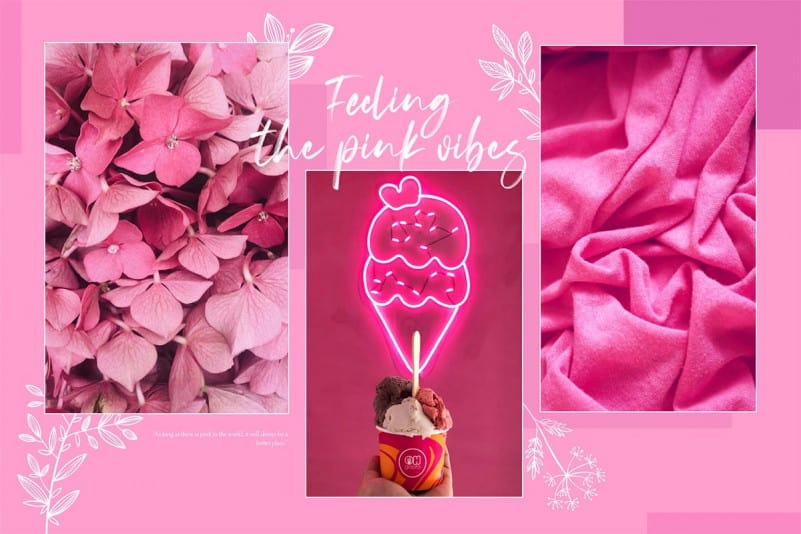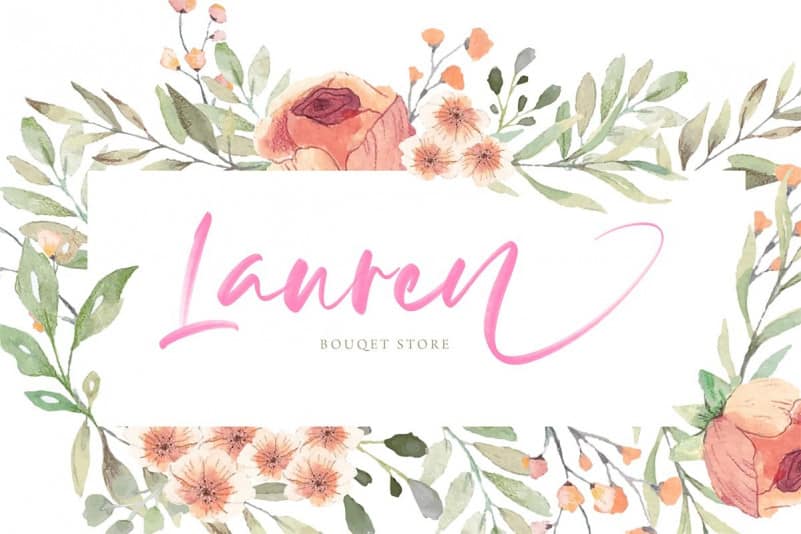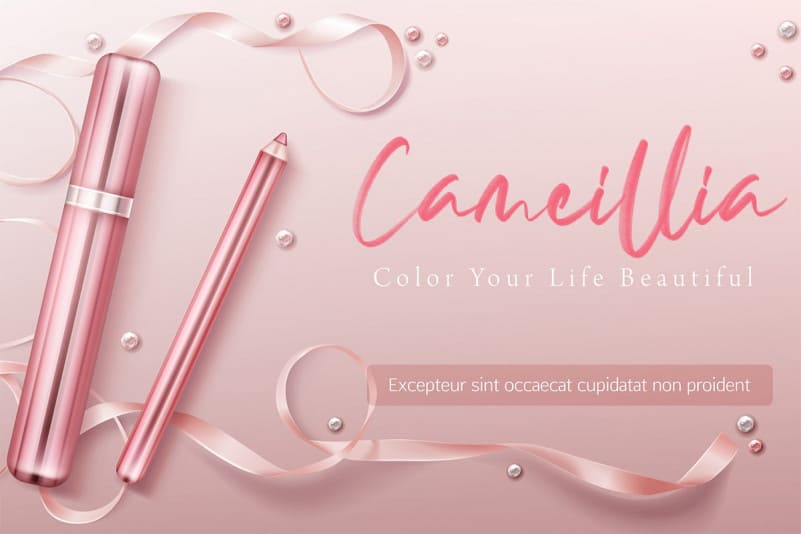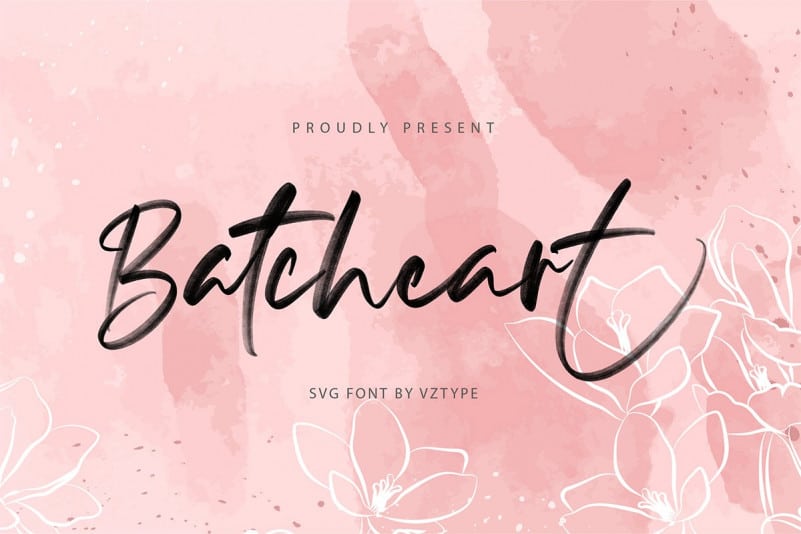
Batcheart Brush Font
Glad to introduce you a new Batcheart Brush Font, a realistic hand brushed typeface, with natural authentic brush, and also provided some alternate and Swashes. It’s designed and shared by Vztype. Brand new stylish textured fonts and Make it easy for made logotype Handlettering Style. It will be great for Logotypes, Posters, Digital Lettering Arts, Clean Design, Branding Design, Sign, Merchandise and Social Media Posts.